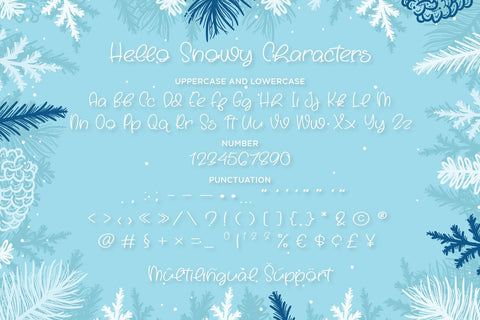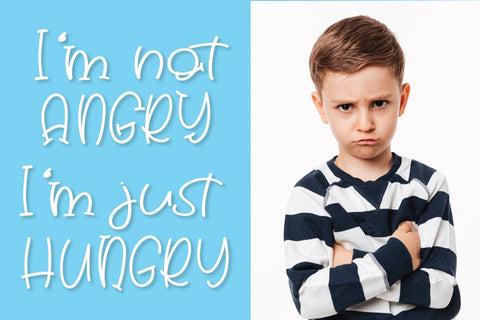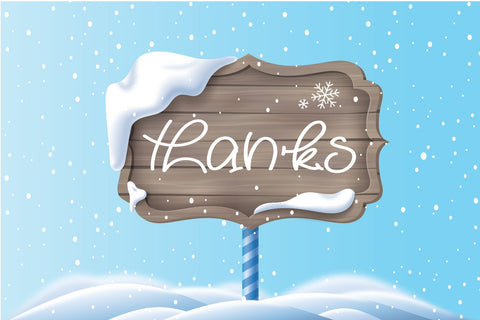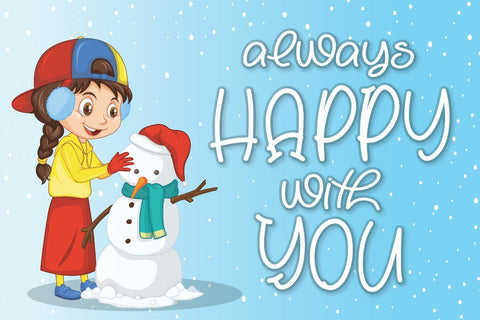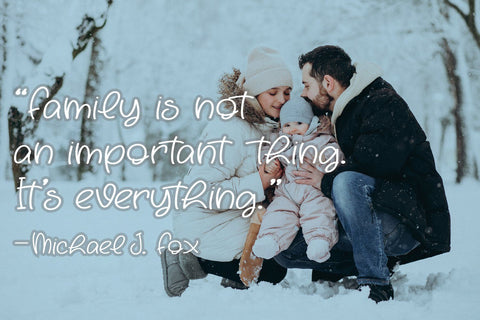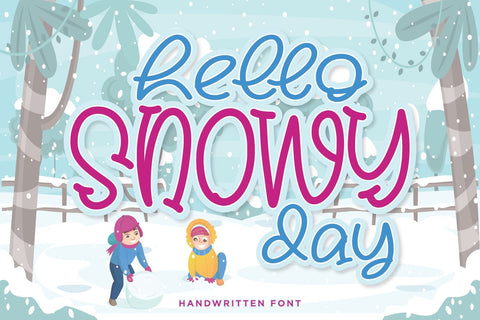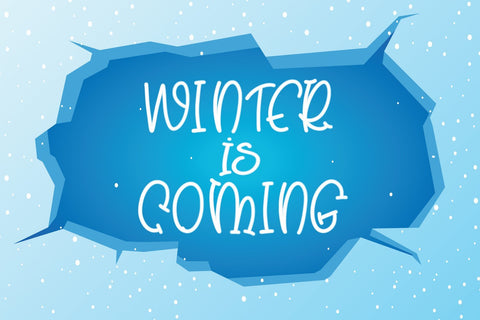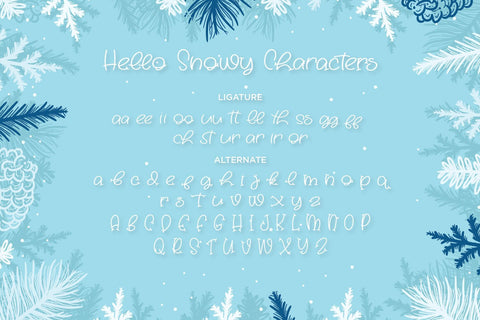
Hello Snowy - Cute Handwritten Font
Hello Snowy is a cute handwritten font bursting with handwritten charm and personality!
It is a perfect choice for crafters with cutting machines, as it is ultra-smooth for optimal cutting performance.
Hello Snowy is a fun font that is bold and smooth enough for cutting with Cricut & Silhouette crafting machines, for Titles for kid`s book, scrapbook, logo, icon, phrases or quotes for winter greeting cards ( Halloween or New Year holidays), photo overlay, short phrases, children’s book, gift shops tag, presentation in social media Pinterest, Instagram, Facebook or others.